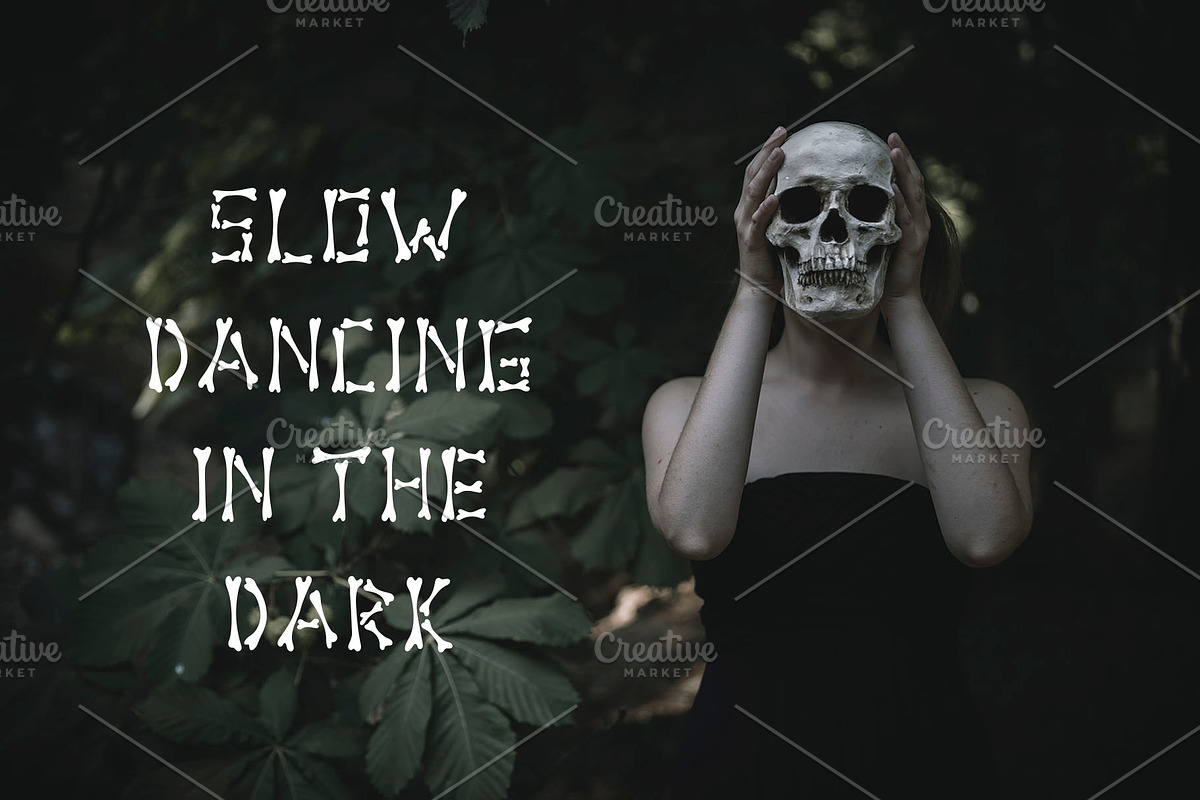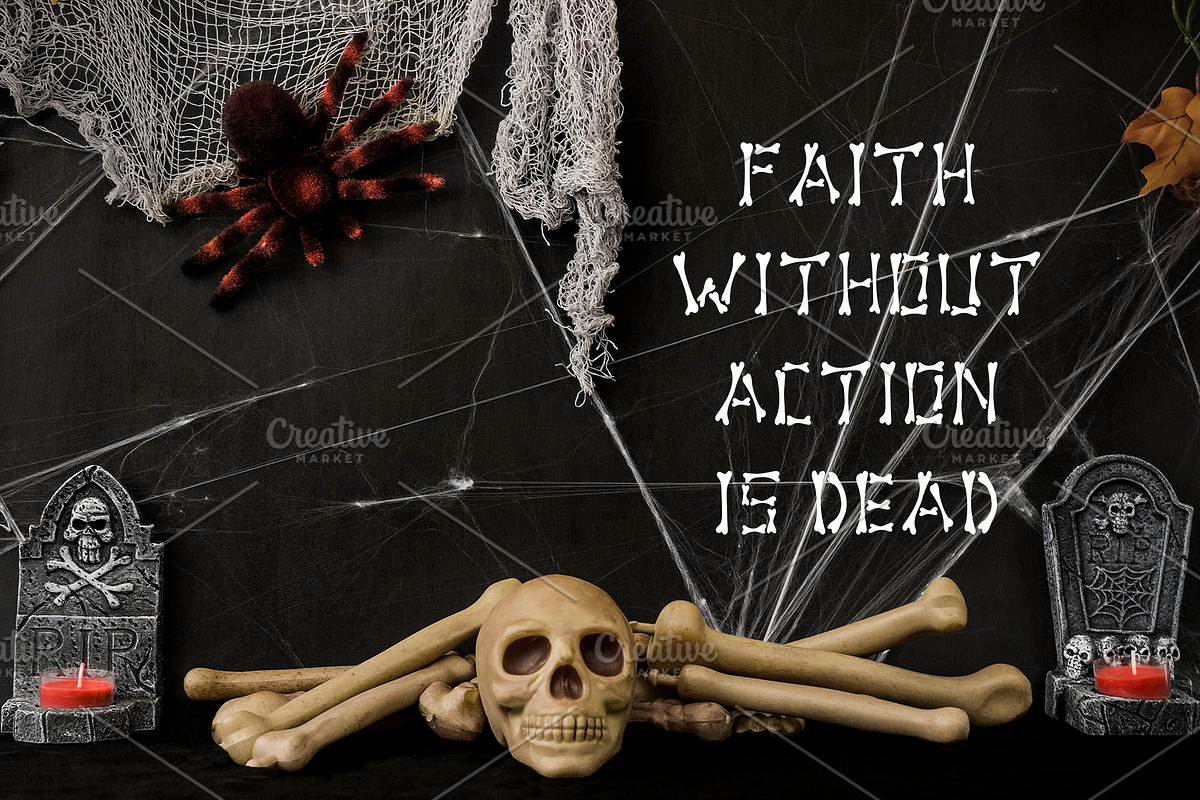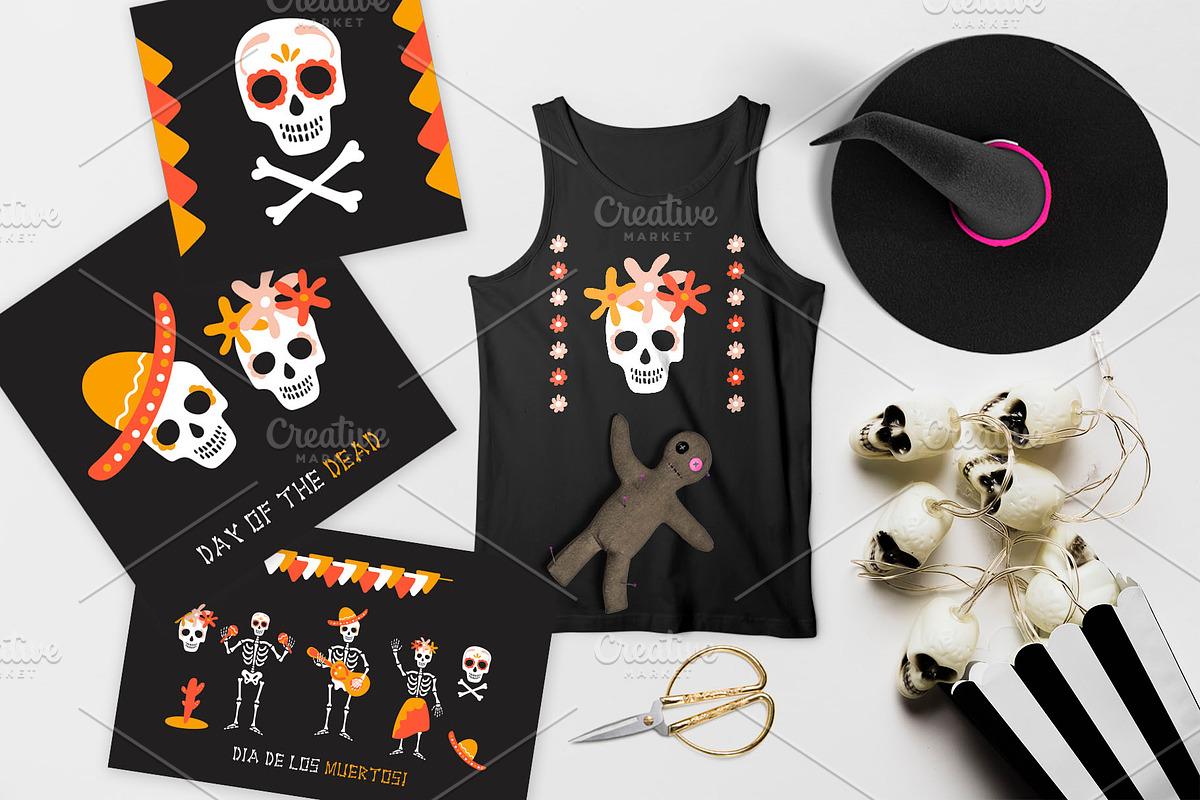
Skeleton Font and Graphics Pack
Introducing Skeleton Font and Graphics Pack.
- Skeleton Regular
Skeleton Font and Graphics Pack by Nadezda fits naturally into Branding, posters, packaging, typography.